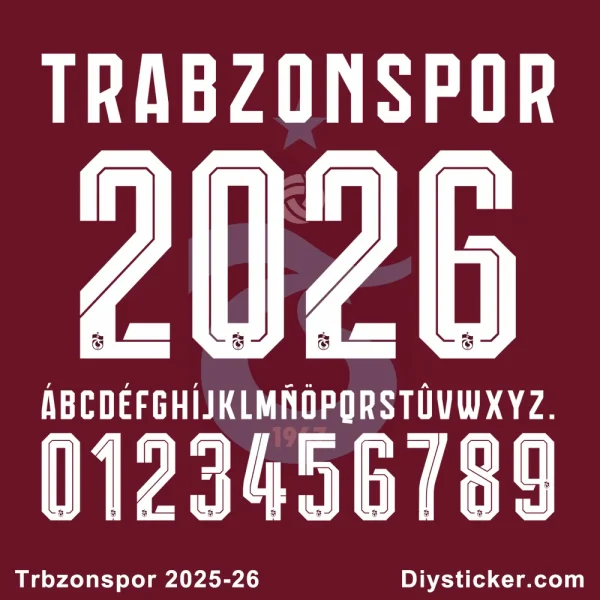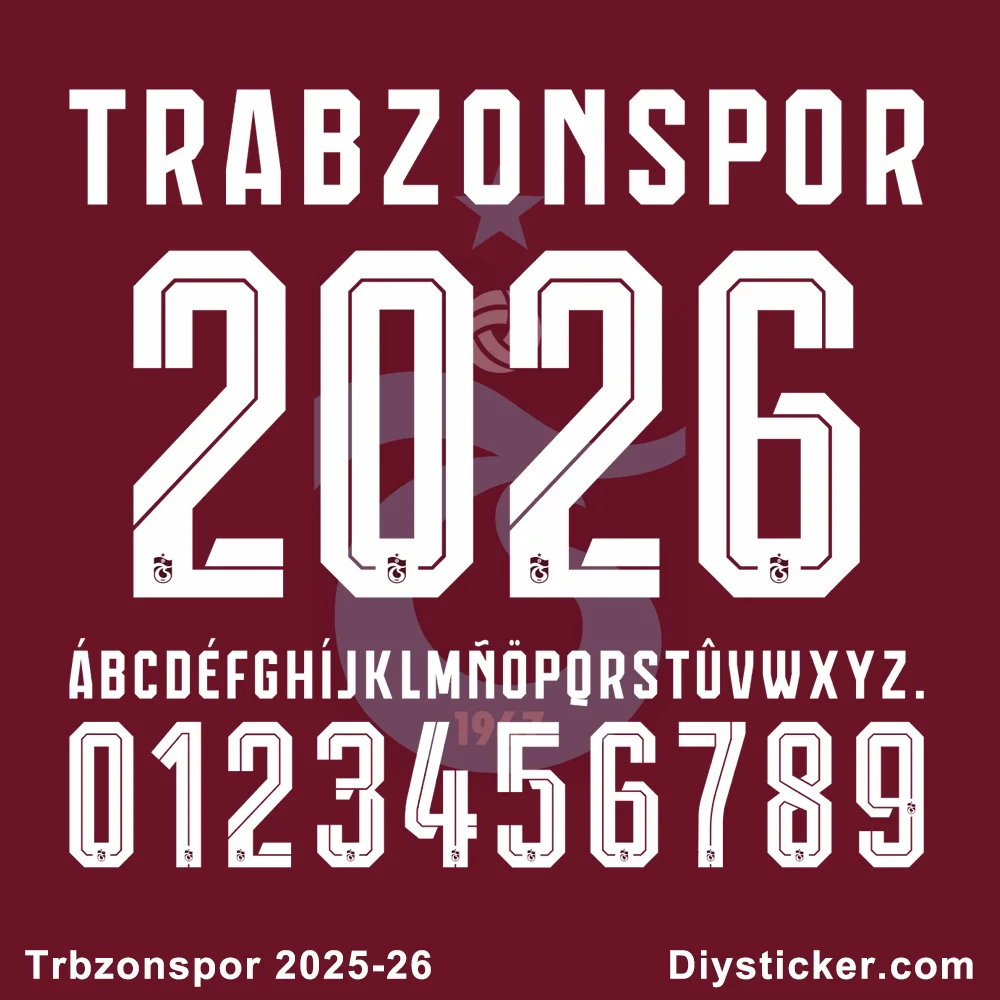
Trabzonspor 2025-26 Font Downloads
Design with the pride of the Black Sea using the official Trabzonspor 2025-26 Font. This professionally crafted typeface replicates the club’s distinctive lettering, ideal for creating authentic jerseys, fan merchandise, and digital content for the Bordo-Mavililer supporters.